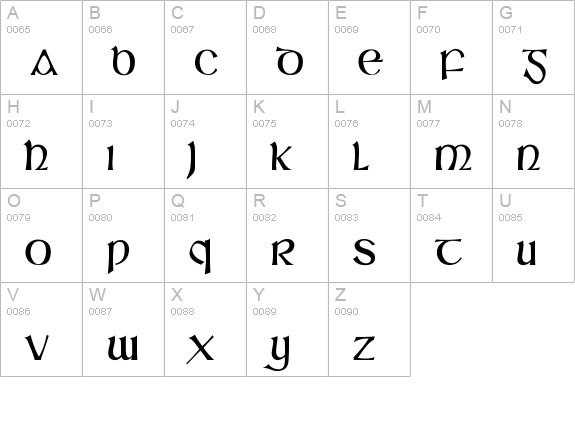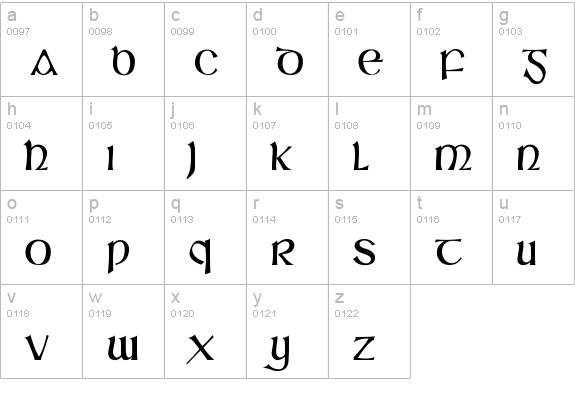
Sl‡ine Font Details
Introducing Sl‡ine, a captivatingly elegant font that will elevate your designs to new heights. With its sleek and stylish appearance, Sl‡ine is the perfect choice for branding, logos, headlines, and more. This versatile typeface exudes a sense of sophistication and modernity, making it ideal for a wide range of projects. What sets Sl‡ine apart is not only its aesthetic appeal but also its accessibility. This font is generously offered for free, allowing designers, entrepreneurs, and creative individuals from all walks of life to effortlessly incorporate this stunning typeface into their work. By making Sl‡ine freely available to download at FontsMarket.com, the creators have ensured that anyone can access this extraordinary font without any barriers. Sl‡ine's carefully crafted letterforms and smooth curves create a visually pleasing reading experience, whether it's on print or digital platforms. Its balance between elegance and legibility makes it suitable for both short and long texts, ensuring that your message is conveyed with utmost clarity. With a wide range of weights and styles, Sl‡ine offers endless possibilities for designers to experiment and create unique compositions that leave a lasting impression. Whether you're designing a magazine layout, a website, or even a wedding invitation, Sl‡ine will effortlessly add a touch of sophistication and refinement to your project. Download Sl‡ine for free at FontsMarket.com and let this remarkable font unleash your creativity. Elevate your designs, captivate your audience, and make a lasting impact with Sl‡ine.